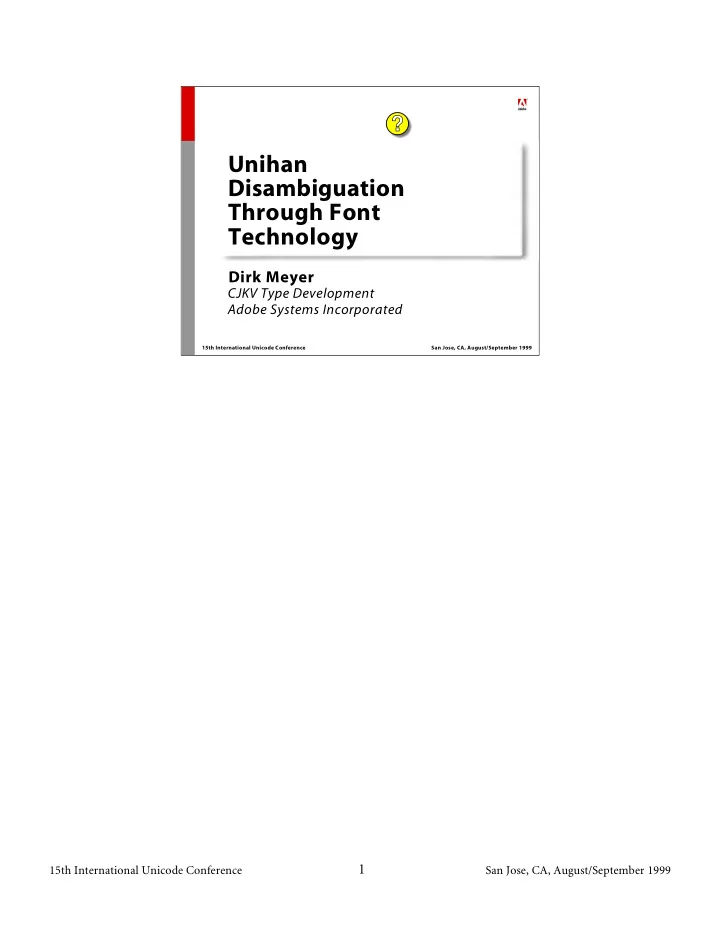
Unihan Disambiguation Through Font Technology
• Short history of Unicode
’s CJK portion
• Unihan ambiguity – the result of Han Unification
• Fonts can help to solve the problem
• Implementation: CID-keyed font
• Implementation: OpenType (OTF) font
• Summary
“Unihan disambiguation” Through Font Technology
The purpose of this presentation is to show how different font technologies (CID-keyed Font Technology, OpenType, etc.) can be applied to help resolving what is commonly called the “Unihan ambiguity problem.” The process of Han Unification can be considered to be one of the major “historical” achievements among the efforts to create Unicode. But developers are facing the problem of how to “disambiguate” the characters of the Basic Multilingual Plane’s (BMP) Unihan portion in the context of cross-locale Unicode fonts. In order to represent the Chinese characters of different Asian locales in a culturally adequate and typographically correct way with the help of Unicode, additional glyphs must be available in a font which shall be used across locale borders. Preliminary research shows that in such a “multi- locale” or “Pan-CJK” font, roughly 50 percent of the CJK characters need more than one glyph representation, depending on the typeface. Different approaches exist to make the additional glyphs available in fonts and how applications can get access to them. This presentation will provide implementation examples for achieving it through fonts applying CID- keyed or the closely related OpenType font technology. It will focus on explaining and demonstrating how the problematic consequences of Han Unification can be resolved with the help of fonts.
Short history of Unicode’s CJK portion
Hanzi (CC) + Kanji (J) + Hanja (K) = Unihan
In the process of defining Unicode, the Han Unification is probably the biggest achievement overall. Before the creation of Unicode, several Asian countries had established encoded or unencoded Han character sets with partly overlapping contents. In order to make the “unified repertoire of Han ideographs” a reality, representatives of these countries put a lot of joint effort into phrasing precise rules about how to treat, in a common code, those characters that were different, or “nearly different.” Basically, these rules define which characters from different locales can – despite their sometimes-subtle differences – be considered identical (and thus be unified in order to occupy a single code point), and which are too different to be unified. To make it completely clear: the differences referred to here are not, for example, those between traditional and simplified Chinese characters. Han Unification takes place where the same character is written differently in Japanese or Chinese, because different typographical
• r glyph design rules exist in these countries.
Han Unification freed up many otherwise wasted code points and helped to avoid duplicately-encoded characters. Of course, exceptions exist, but the procedures made and still make a lot of sense.
Unihan = Unified Han Ideographs
• Unification result (Unicode v. 2.1):
– 21,204 Han Ideographs
• > 20,902 (Unified Repertoire and Ordering, v. 2.0)
• > 302 (CJK Compatibility block, U+F9xx/U+FAxx)
• Important addition:
– 6,582 Han Ideographs
• > Han Extension A (in BMP)
Based on those Han Unification rules, the process of extending Unified Repertoire and Ordering (URO) both “horizontally” (to include character mappings from other or newly established standards [Hong Kong SAR, Vietnam]) and “vertically” (to include new characters from these standards) is continuing and will continue for years to come. For additional information about the Han Unification process, see: Han Unification History [Appendix E,] (The Unicode Standard, Version 2.0, pp. E-1f) For information about Unicode’s CJK source standards, structure and
• rdering of Unihan, as well as exceptions for the Han Unification process
(like the “source separation rule”, “non-cognate rule”), see: CJK Unified Ideographs: U+4E00–U+9FFF [CJK Ideographs Area,] (The Unicode Standard, Version 2.0, p. 6-104ff) For explanations about the source properties of each Unihan character, see: CJK Unified Ideographs [Code Charts, Chapter 7.2] (The Unicode Standard, Version 2.0, p. 7-3f)
Unihan ambiguity is the result of Han Unification
Unihan = ? (CC) + ? (J) + ? (K)
Not always fully understood are the consequences rooting in the fact that Unicode is a “character” standard and thus does not define any character shapes or “glyphs.” In other words, it does not care about specific representations of given (“abstract”) characters. Only this precondition made a process like the one of Han Unification possible in the first place. However, we now must face the problem of Unihan ambiguity as its direct